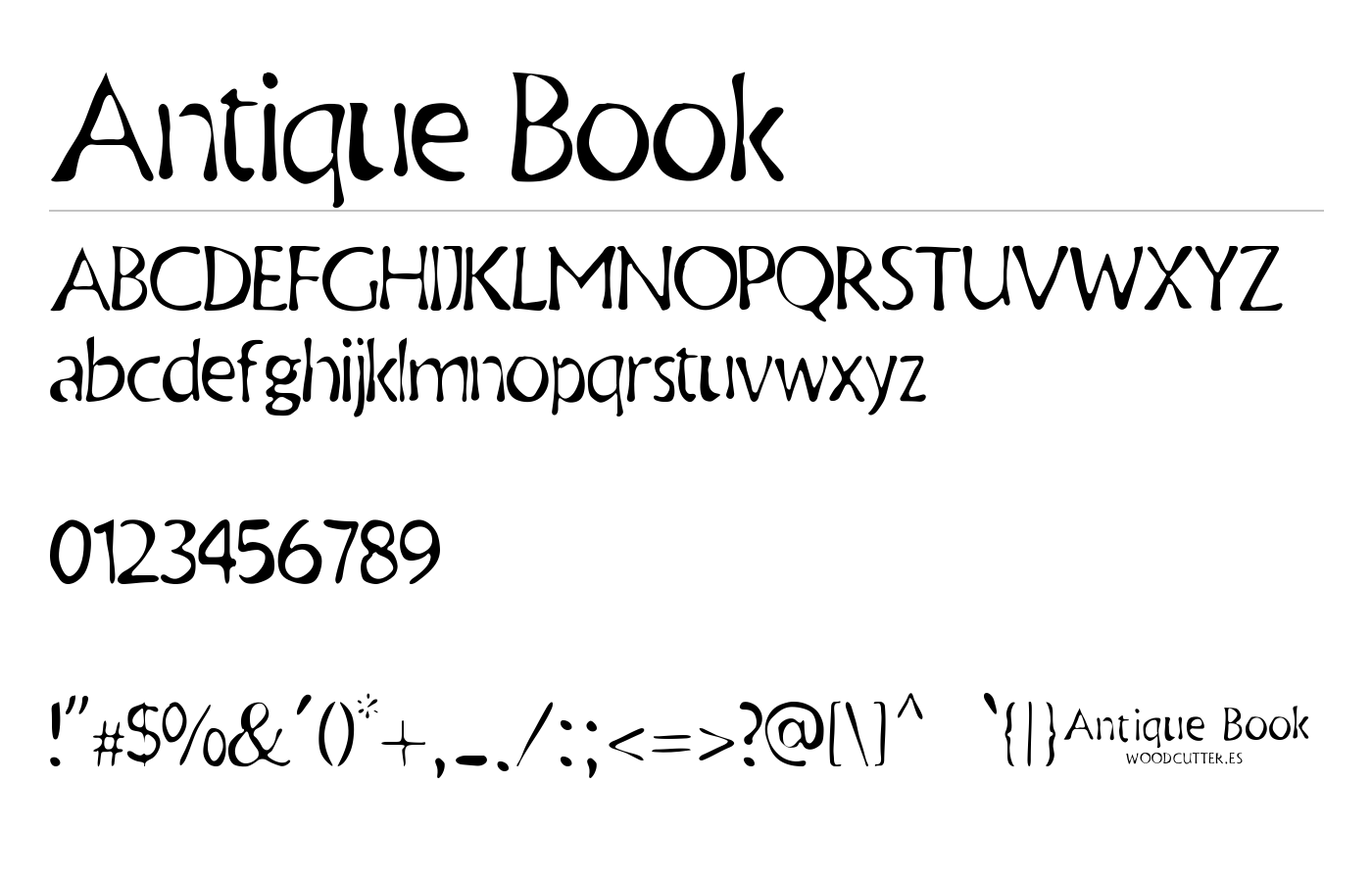
Antique Book Font is a unique serif typeface with a hand-crafted, slightly whimsical feel that captures the charm of old manuscript writing. Its irregular stroke widths and playful letterforms give it a vintage, storybook character, making it perfect for creative projects that want to evoke warmth, tradition, and a touch of fantasy. This font works beautifully in headings, packaging, and editorial designs where a distinctive, classic yet approachable look is desired.
Antique Book Font